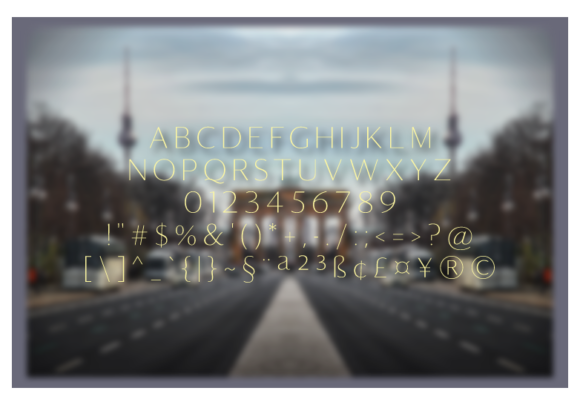
Introduction to Ludhovicf Thin Font
Imagine you’re brainstorming ideas for a new creative project, and suddenly, the perfect font pops into your mind. For designers, finding that elusive perfect font can be a game-changer. It’s the difference between a project that feels polished and one that’s just okay. That’s where the Ludhovicf Thin Font comes in – a stunning blend of traditional Spanish architectural elements and modern, minimalist design.
As a high-quality design resource, Ludhovicf Thin Font offers a level of sophistication and elegance that’s hard to find. Its unique cut-ins and curves make it a standout, perfect for designers looking to add a touch of whimsy to their creative projects. Plus, with a transparent background, it’s incredibly versatile and easy to work with. And the best part? It’s available for free download, making it an invaluable resource for designers on a budget.
Key Features of Ludhovicf Thin Font
- High-quality typography with precise strokes and elegant design, ideal for creative projects requiring a sophisticated touch.
- Supports a wide range of languages, including Latin, Cyrillic, and Greek scripts.
Honest Review: Ludhovicf Thin Font
I recently stumbled upon the Ludhovicf Thin Font, and I must say it’s been a great addition to my design resource library. The high quality of this font is truly impressive, making it perfect for creative projects that require a touch of elegance.
- ✨ Clean and minimalistic design that works well for headings and titles
- ⚠️ Limited character set, which may not be suitable for longer texts
- ⚠️ Not as versatile as some other fonts in the market, which may limit its use in certain projects
Overall, I’m quite impressed with the Ludhovicf Thin Font. While it may not be perfect, it’s a great addition to any designer’s library, and its high quality and free download make it a must-try for any creative project.
Ludhovicf Thin Font
The Ludhovicf Thin Font is a high-quality design resource perfect for creative projects that require a delicate and elegant touch. With a transparent background, this font is ideal for use on any background or design element.
The Ludhovicf Thin Font is commonly used in:
- Brand logos and identity design
- Editorial and publishing design